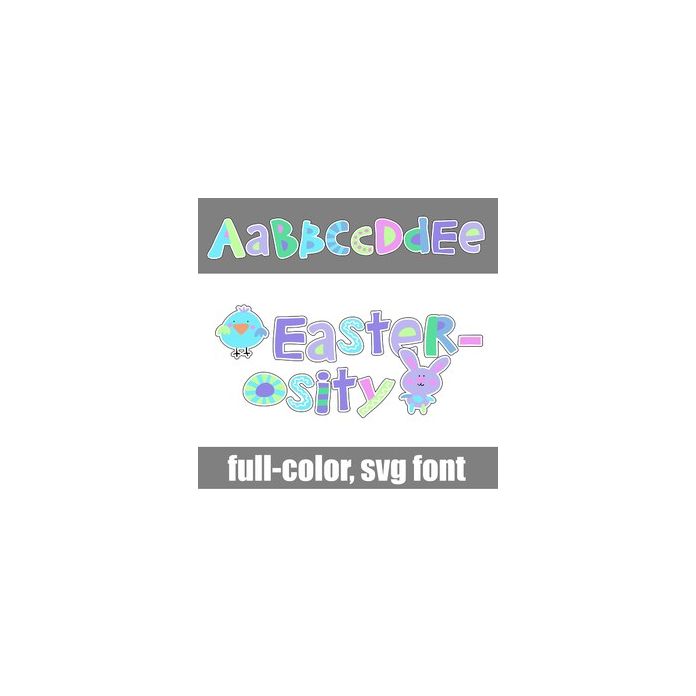
This full-color font features fun and whimsical lettering in a spring color palette. Access a colorful bunny and chick by typing the greater than and less than glyphs. There is an alt case w/ additional colors you can access through your system or Silhouette's glyph map.